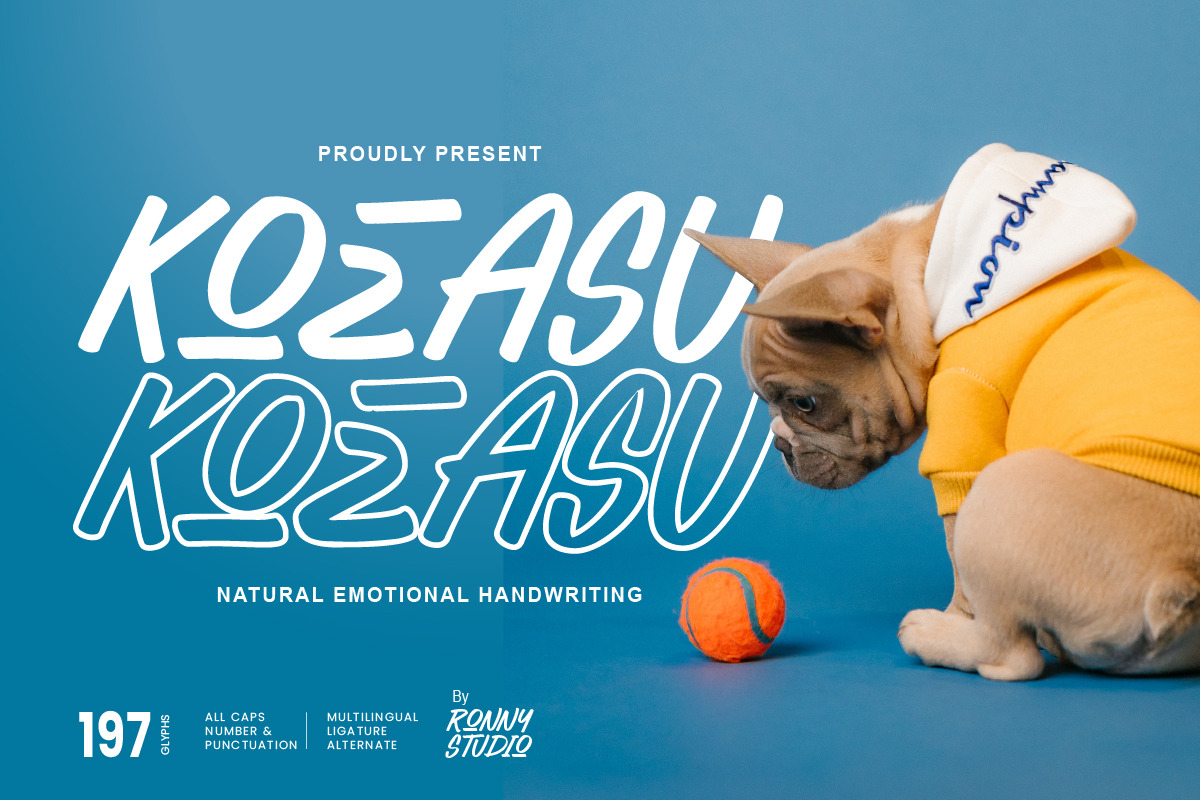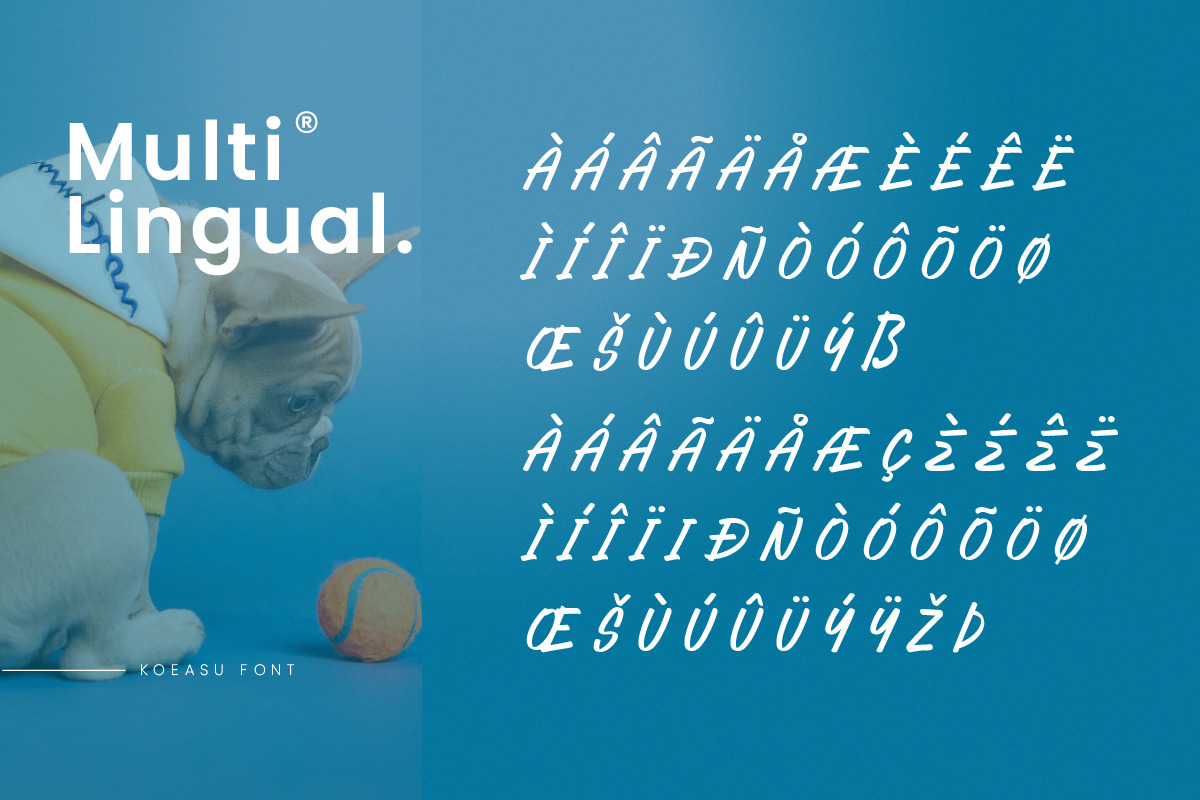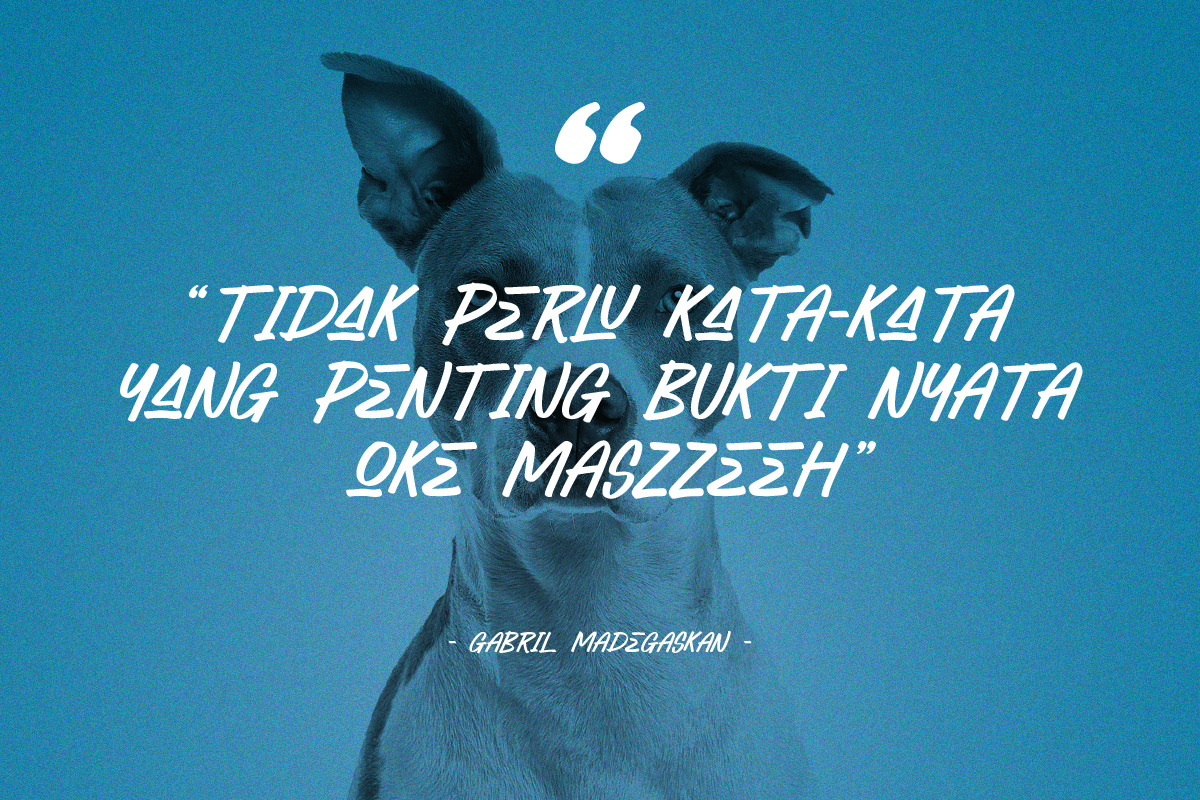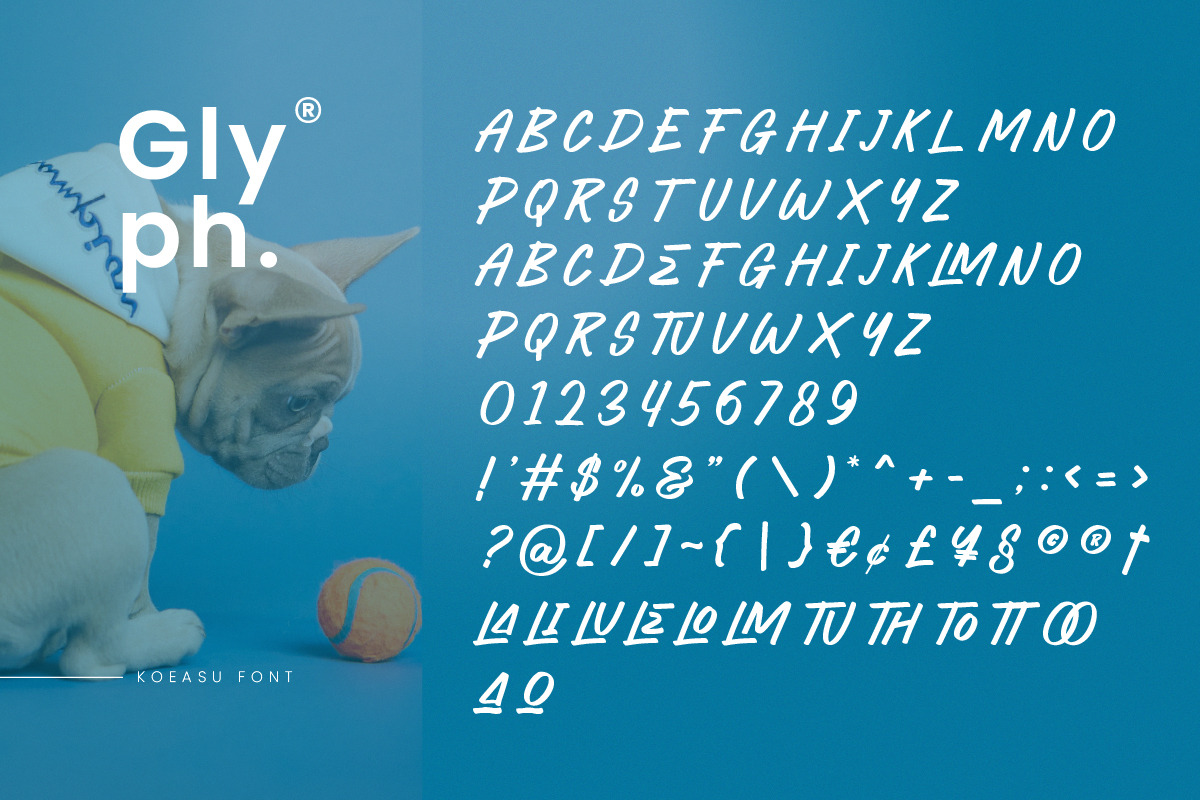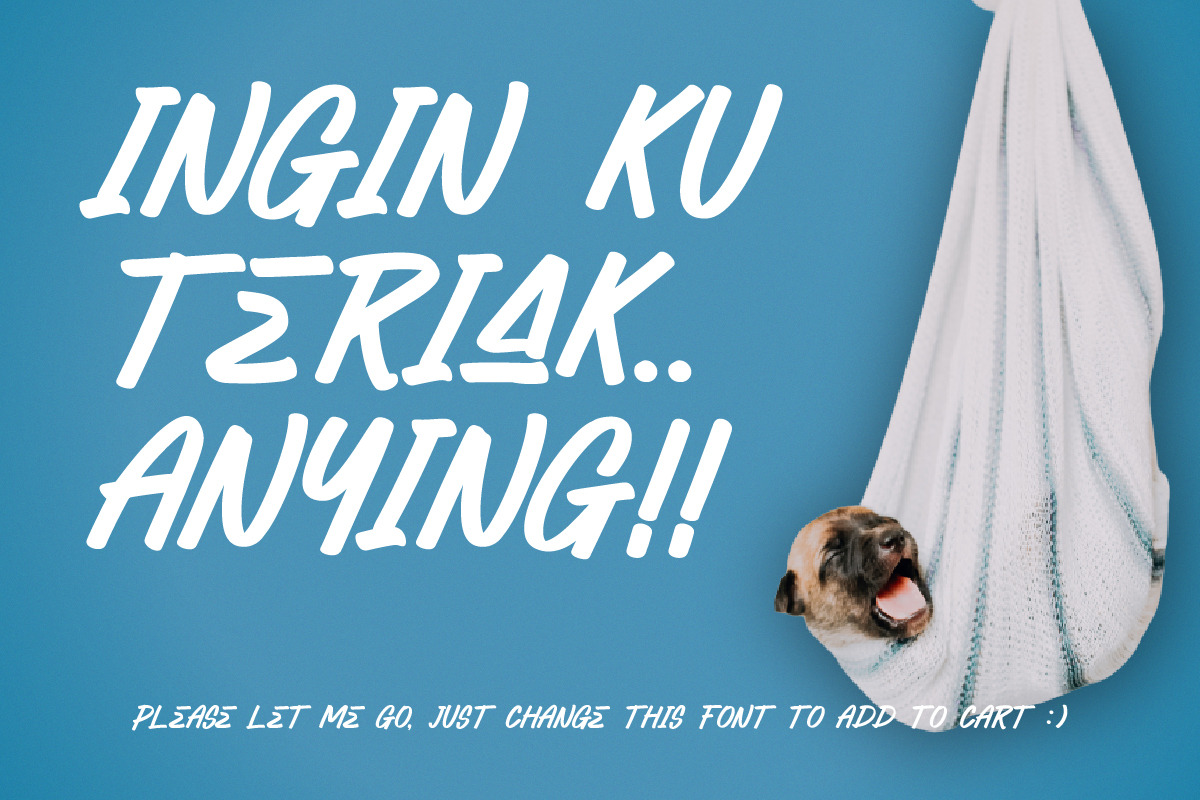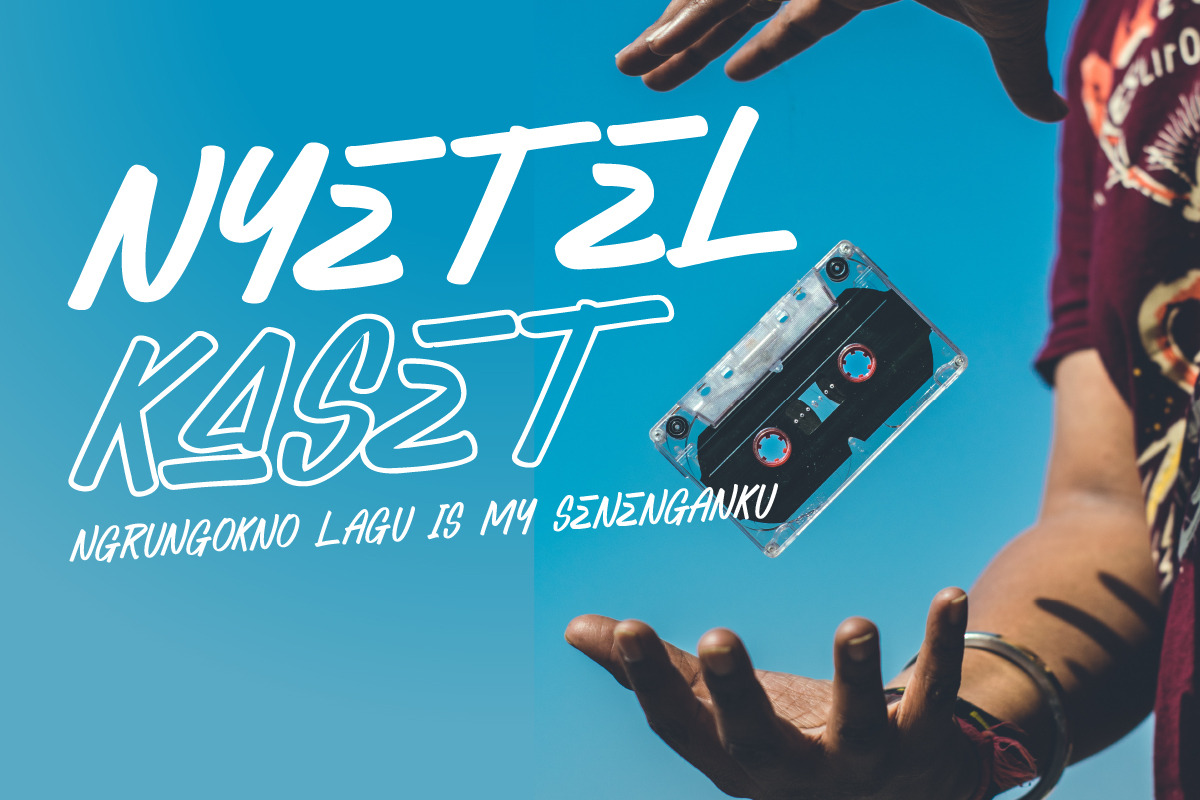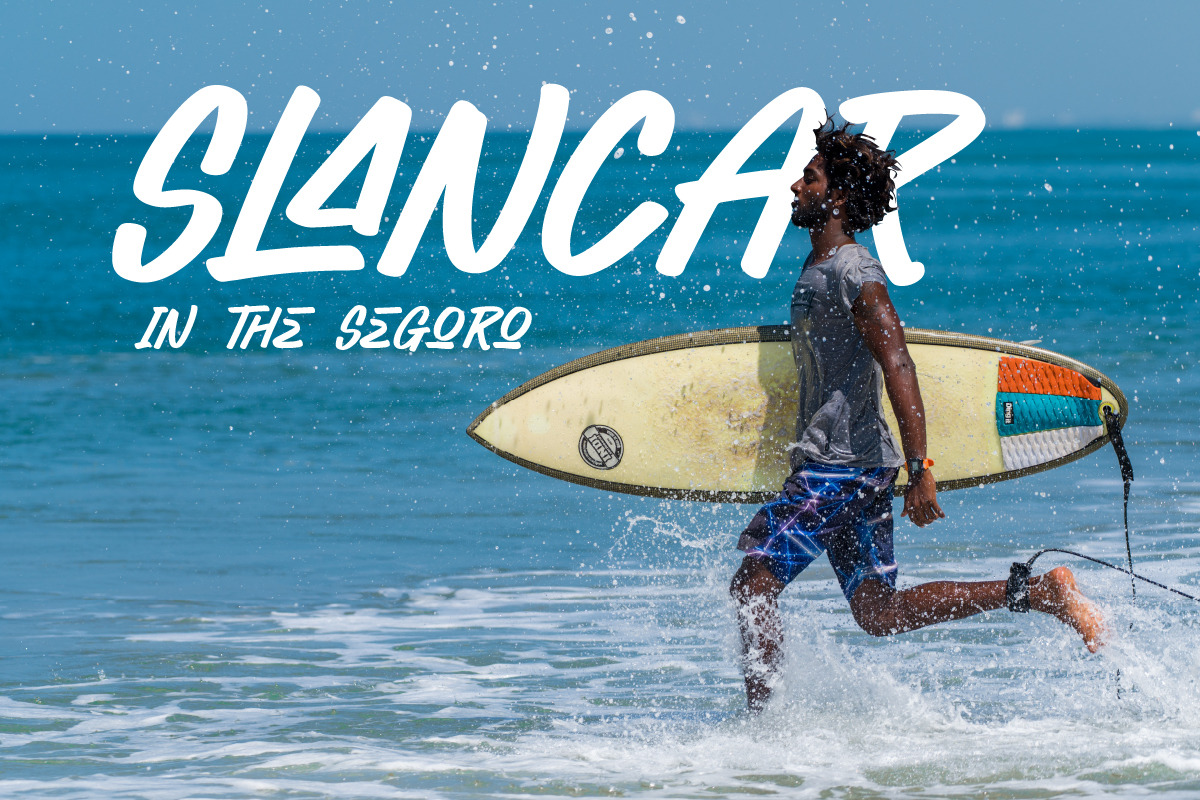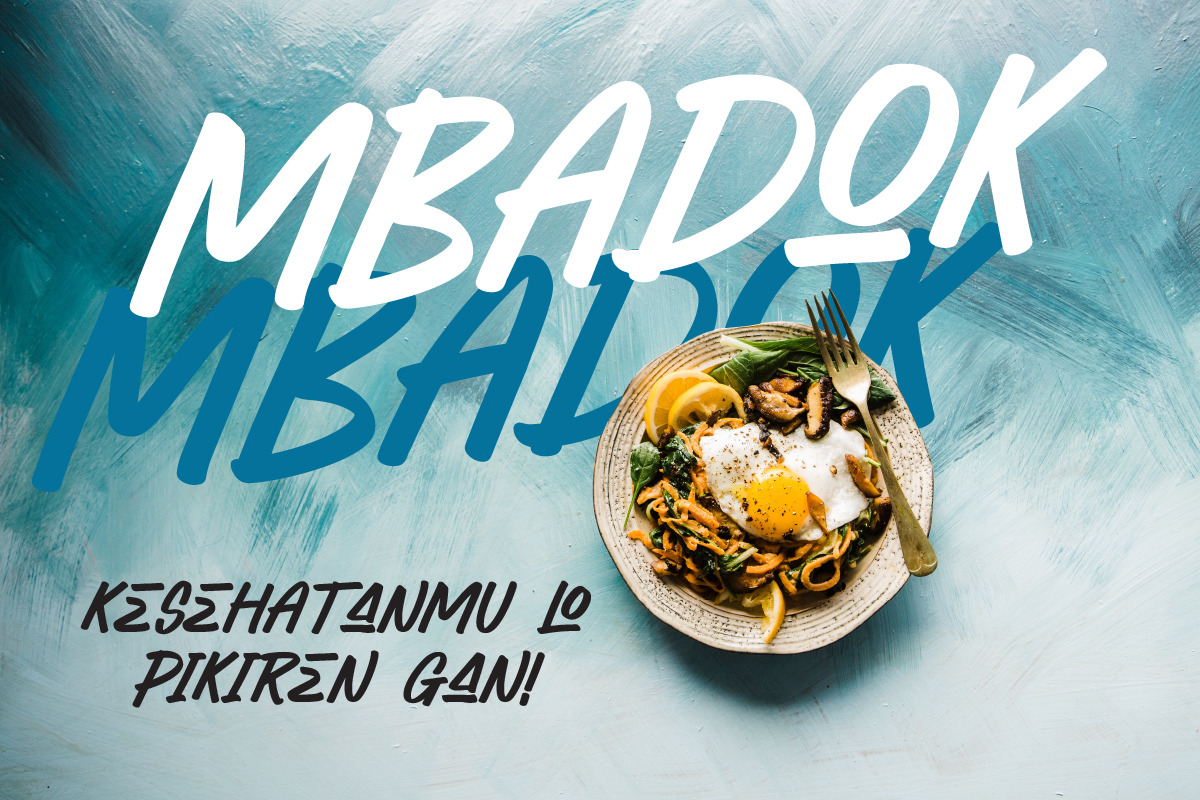
Koeasu Comic Font
Koeasu is an emotional and fun handwritten all-caps font that is absolutely perfect for quotes, products, logos, packaging, Comics, Magazines, Posters, Events, Social Media Posts, books and more! Fresh and clean, beautiful to use as a stylish text overlay to any background image.
4 Weight Font :
- Italic
- Bold
- Outline
Koeasu Features :
- All Caps